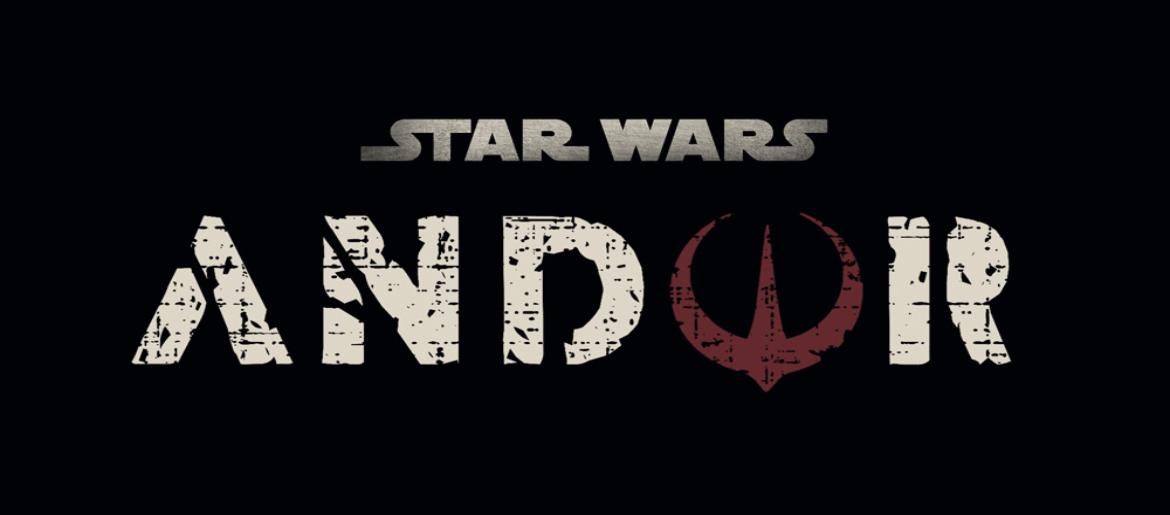
Star Wars Andor Font
What Font is Star Wars Andor?
The Star Wars Andor Font is a faithful replica of the original typeface (designed by Vic Fieger) used in the logo of Andor, the acclaimed Star Wars series. This replica captures the same sleek, futuristic, and gritty aesthetic that defines the show’s tone — a perfect blend of rebellion and realism within the Star Wars universe. The bold and geometric lettering reflects the intensity and depth of the story, making it instantly recognizable to fans of the franchise.
Whether you’re designing a sci-fi poster, fan art, or a themed project inspired by the galaxy far, far away, this replica font lets you bring the essence of Andor to your own creative work with cinematic authenticity.